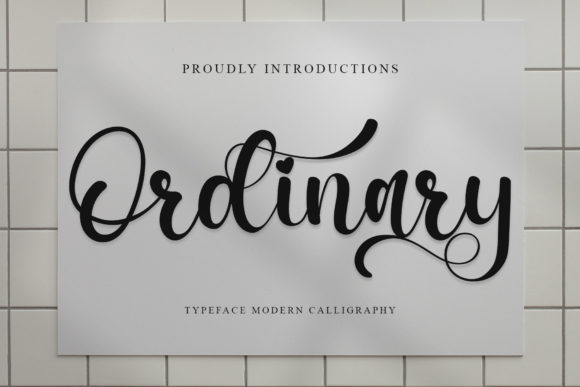
Immerse yourself in the world of exquisite calligraphy with Ordinary Font, a script font family that exudes romance and sweetness. Its characters, dancing along the baseline, will infuse your designs with a touch of luxury and charm.
Crafted by the talented YanStudio, Ordinary Font is a visual masterpiece that will elevate your creative projects to new heights. Whether you're designing wedding invitations, branding materials, or social media graphics, Ordinary Font will add a touch of elegance and sophistication.
With its PUA encoding, accessing the font's extensive glyphs and ligatures is a breeze, giving you the freedom to explore your creativity without limits. Experiment with different combinations to create unique and captivating designs that leave a lasting impression.
Indulge in the endless possibilities of Ordinary Font and let your imagination run wild. Its versatility knows no bounds, making it the perfect choice for a wide range of projects including logos, posters, flyers, and product packaging.
Step into the world of Ordinary Font and discover a world of elegance, beauty, and boundless creativity. Let your designs shine with the charm and allure of this exceptional font family.